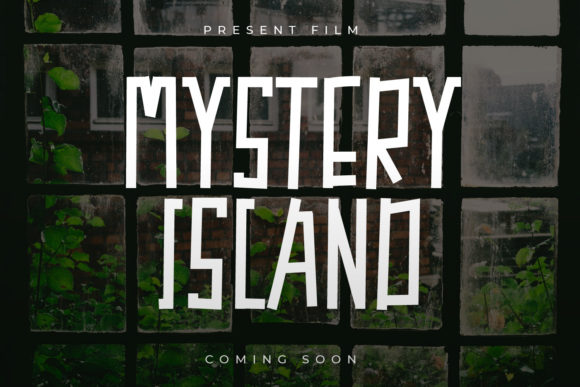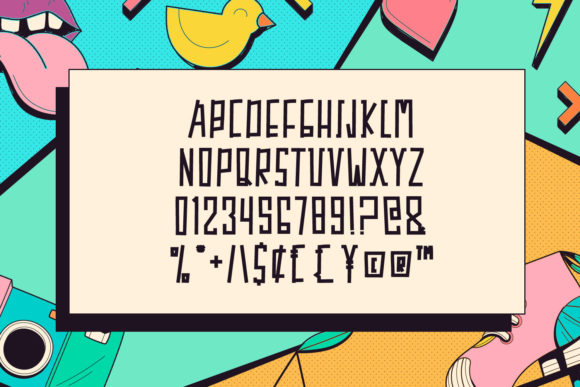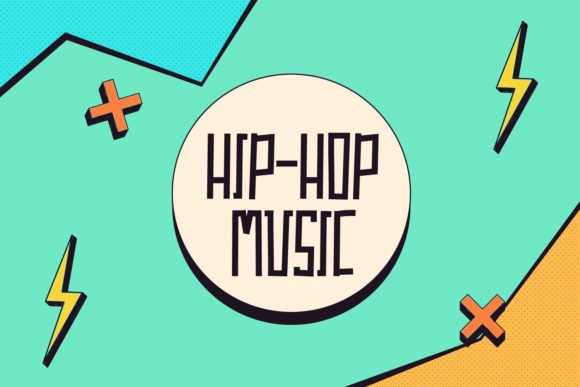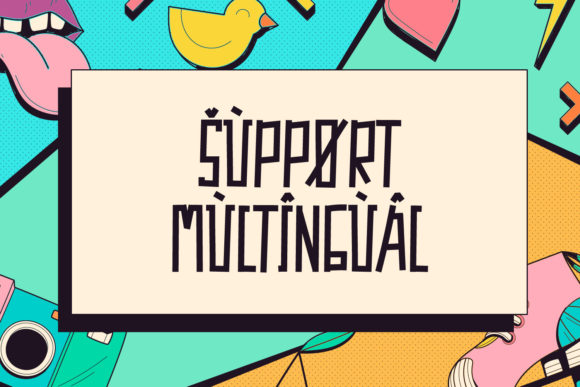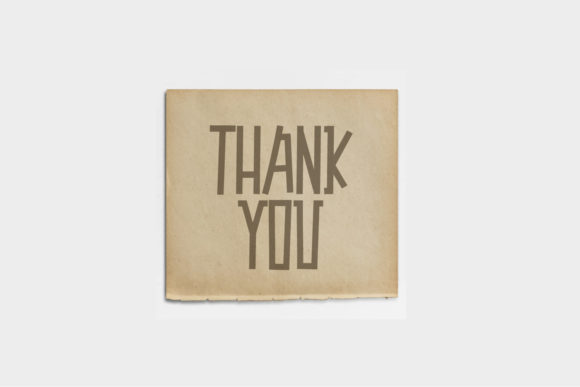
Introduction to Madmax Font
Madmax is a quirky and bold display font.
It will elevate a wide range of crafting ideas, from cards, to branding, labels and much more Add it confidently to your favorite creations and let yourself be amazed by the outcome generated.
Key Features of Madmax Font